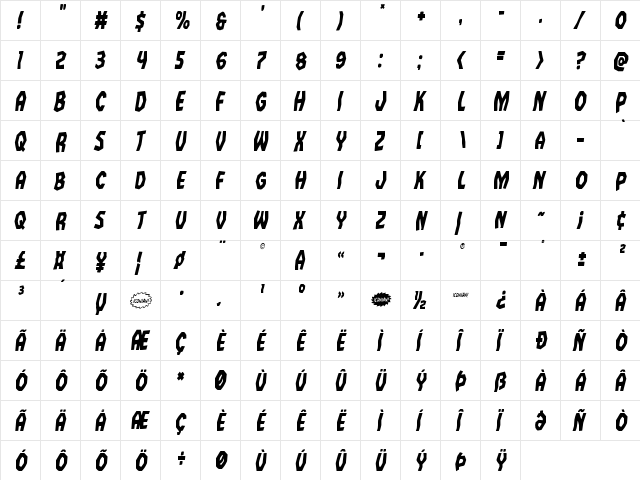
Vampire Bride Condensed Italic Font Preview
Design Context for Vampire Bride Condensed Italic Typeface
Vampire Bride Condensed Italic offers clean, dependable letterforms without strong stylistic allegiance, making it a practical choice for designers who need flexibility. The dynamic lean of this cut emphasises speed and emphasis in any layout. Its narrow stance lets it pack a punch even in space-constrained designs.